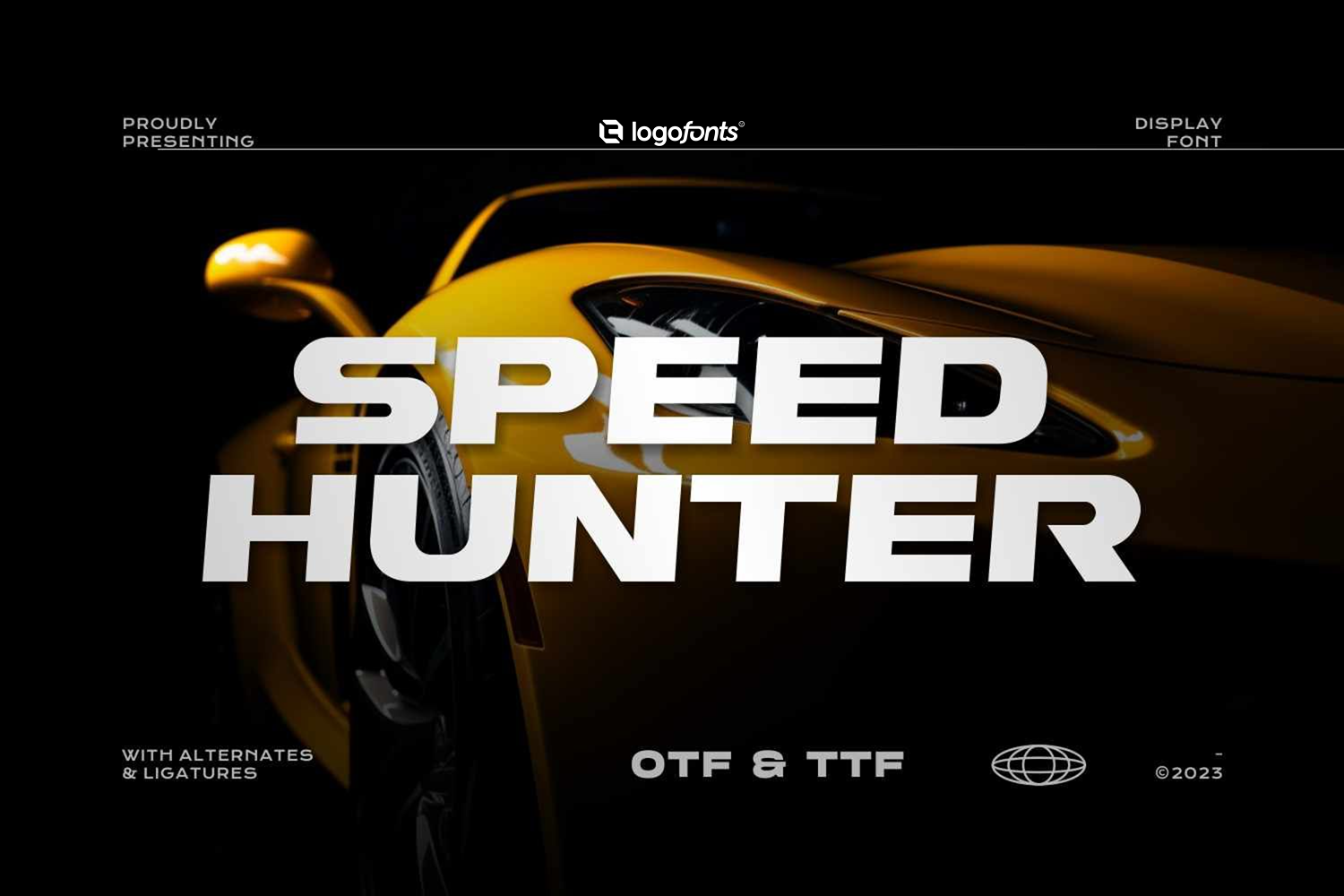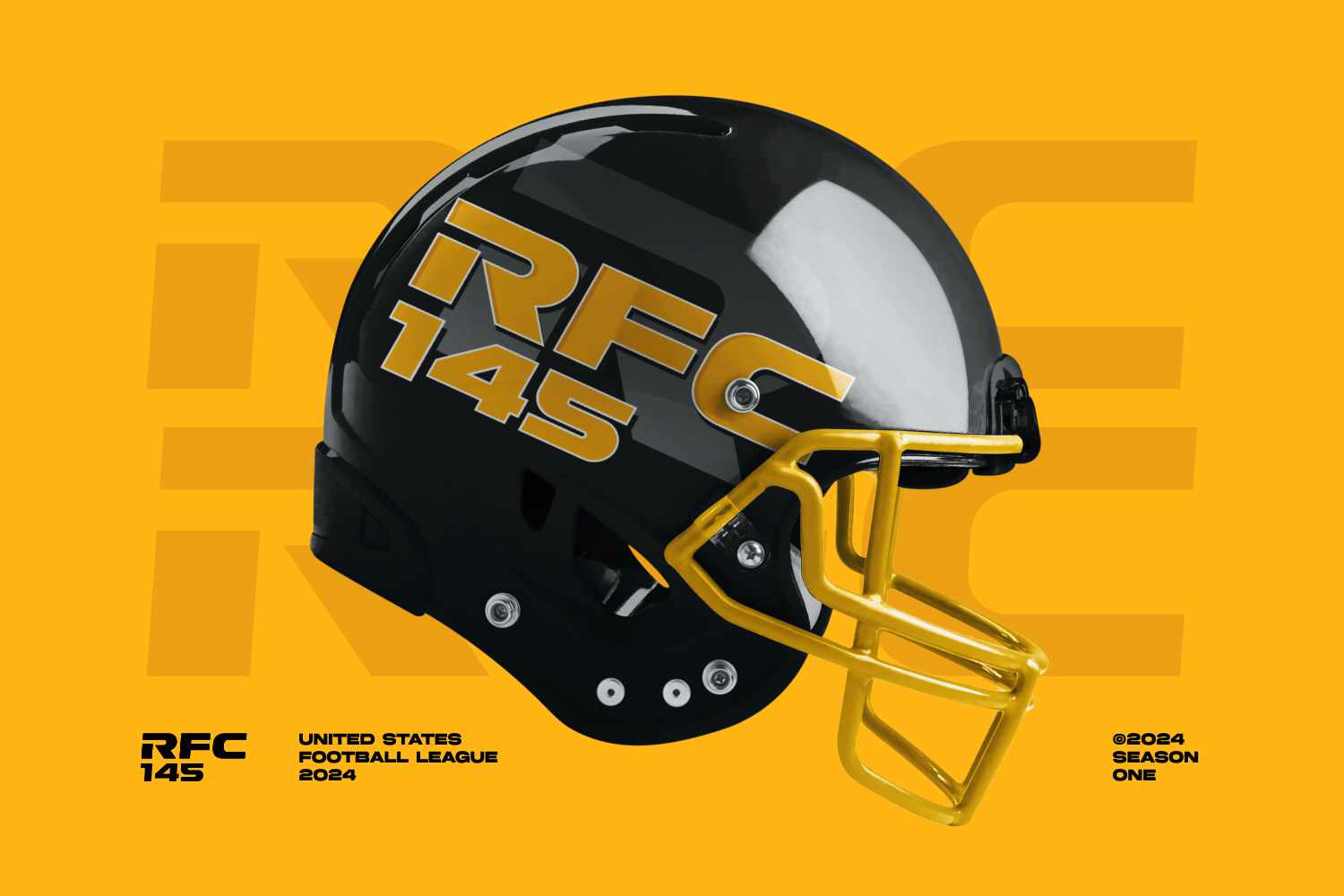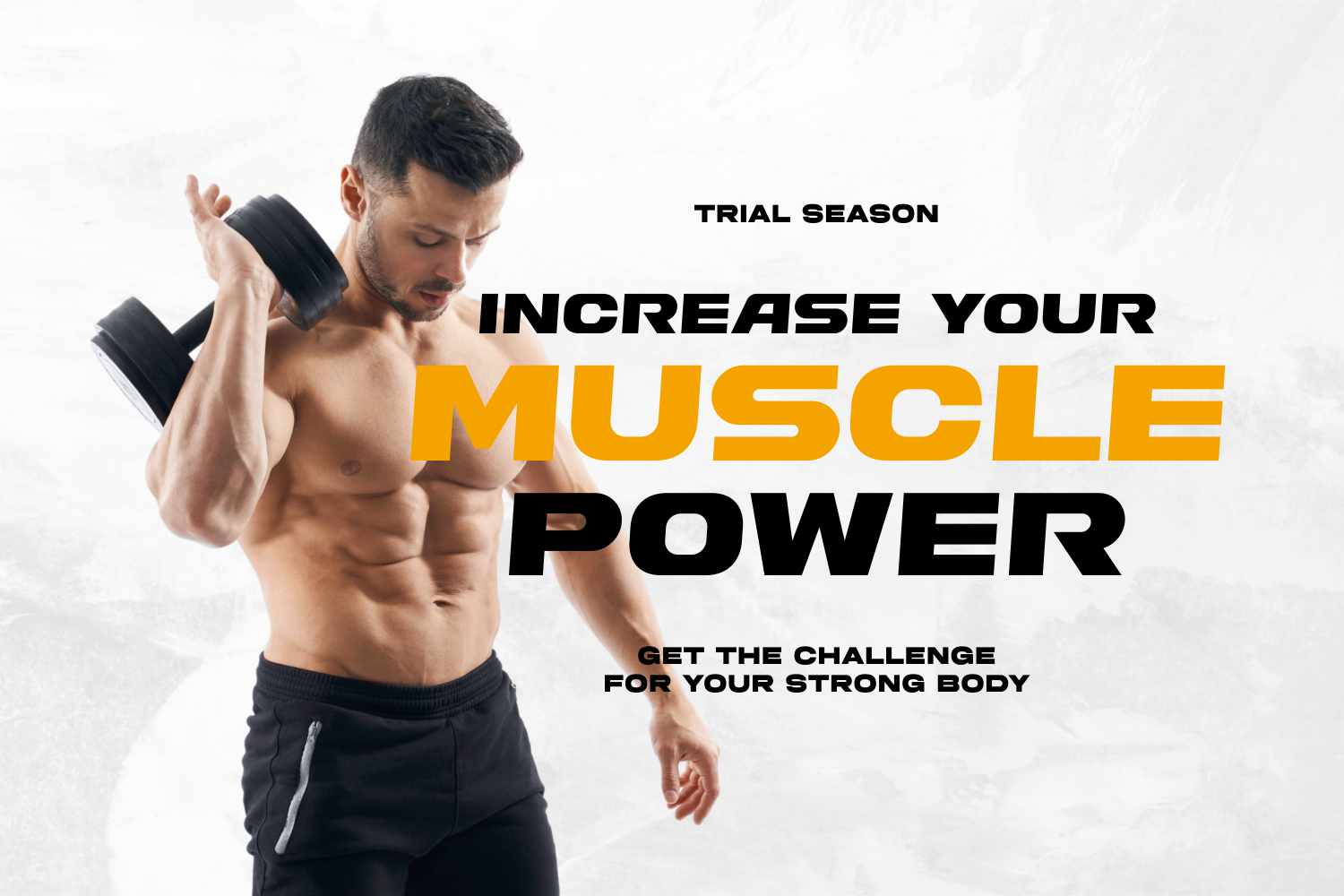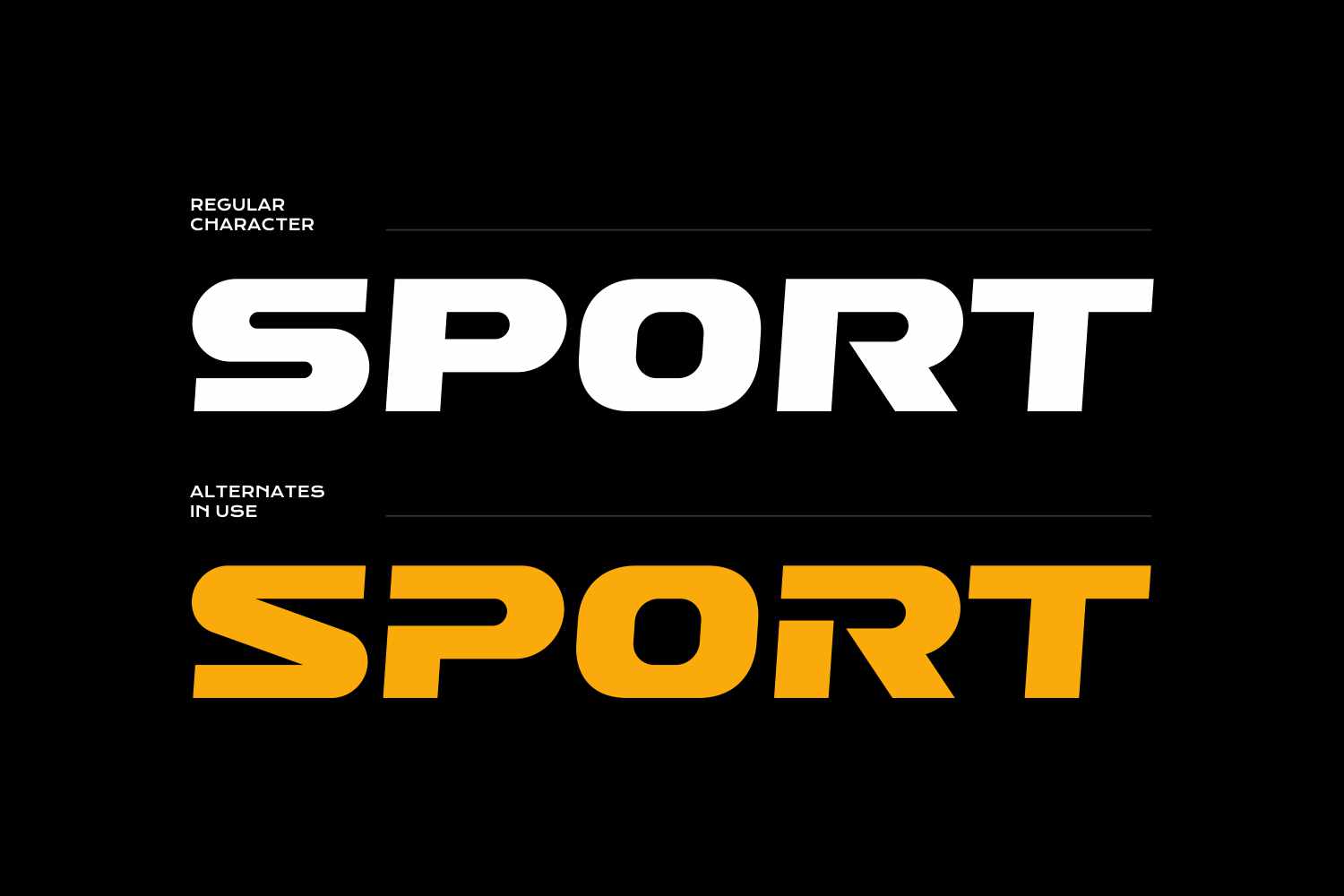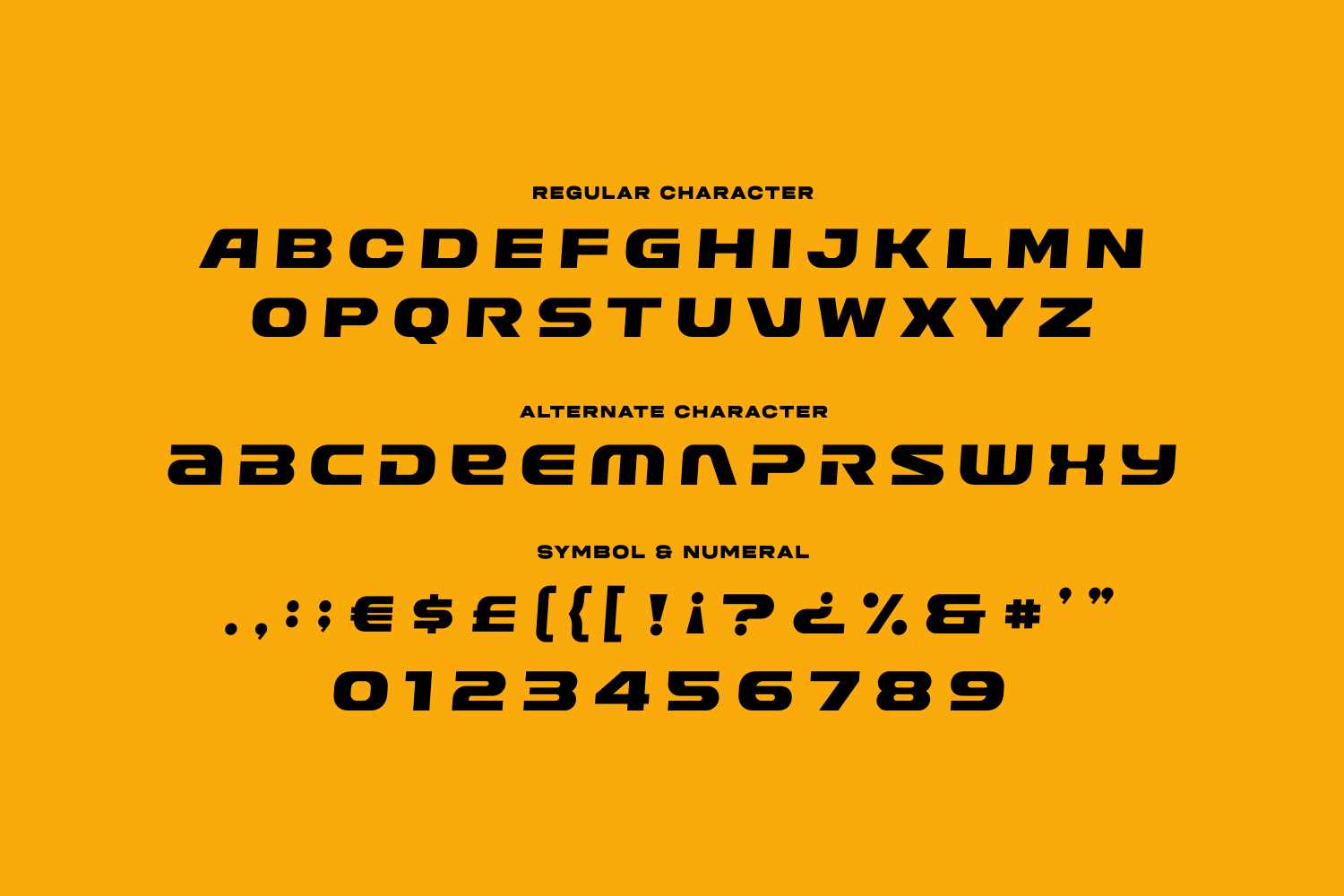
Speed Hunter is a dynamic and powerful display font inspired by motorsport aesthetics and adrenaline-driven design. With a heavy-weight stance and slanted terminals, it conveys movement, strength, and modern athleticism. This font comes with uppercase characters, alternates, symbols, and numerals—ideal for sports branding, automotive titles, and action-themed layouts.
Its alternate characters introduce a turbocharged look that elevates logos, packaging, and promotional graphics. Speed Hunter thrives in bold typography settings where energy and impact matter most.